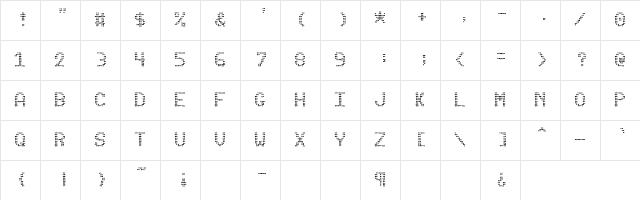
Pinball Data Pinball
Design Context for Pinball Data Typeface
Pinball Data is a composed and adaptable typeface that performs quietly and consistently across a wide range of design contexts.